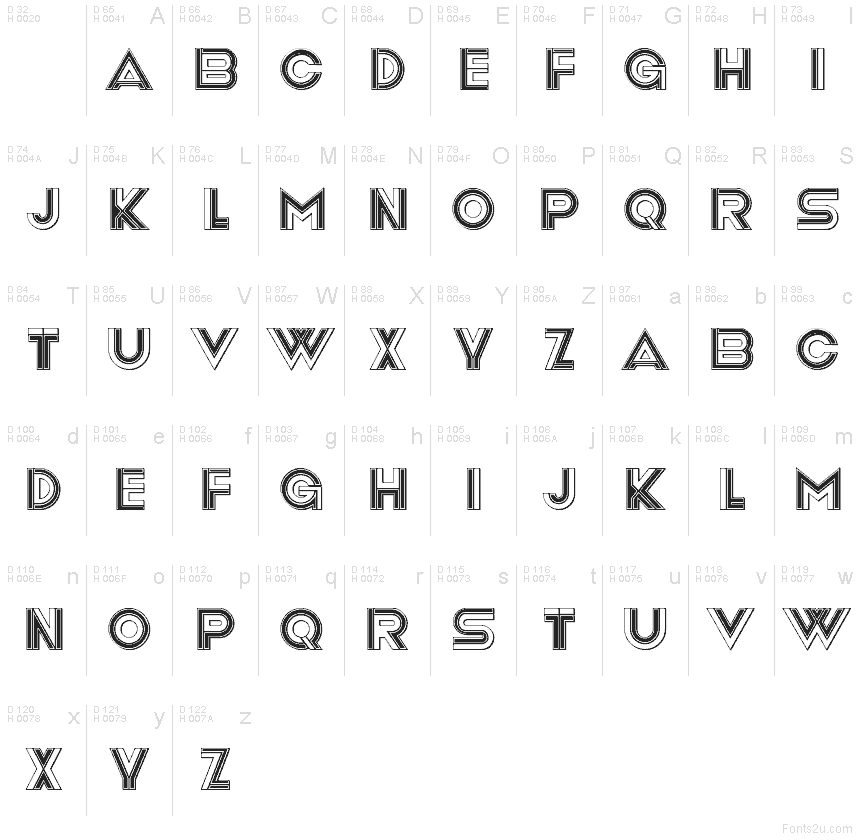
Taiga Extravagant Regular
Taiga Extravagant font by Vladimir Nikolic is a free bold retro display font. Part of the Taiga family, it stands out with concentric outline layers that create a crisp, marquee glow—like neon tubing bent into sharp geometric forms. Angular peaks and circular bowls lock into a tight, rhythmic grid, giving headlines a sleek, Art Deco snap without feeling fussy.
Using Taiga Extravagant, you get instant showpiece energy that shines on posters, logos, album covers, event flyers, packaging, and storefront signage. The wide stance and multi-line strokes scale beautifully at large sizes, delivering depth and drama without ink traps. Pair this free font with a quiet grotesk or a lightweight serif to let the outlines breathe and keep the message clear.